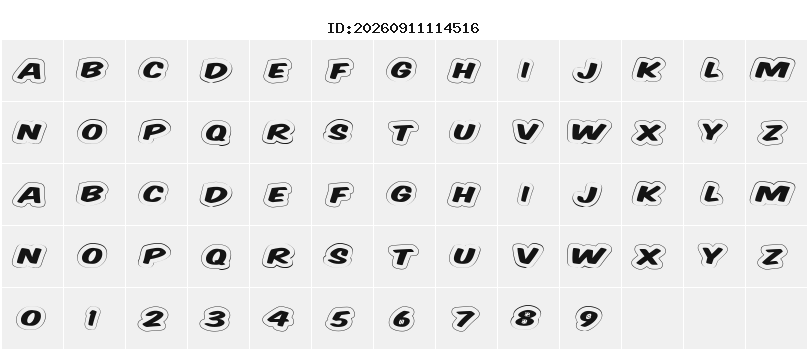
• Font Name: VTCSuperMarketSaleDisplayWired
• Designer: WolfBainX
About VTCSuperMarketSaleDisplayWired.ttf
VTCSuperMarketSaleDisplayWired.ttf is a modern, elegant sans-serif font designed for ultimate readability and visual harmony. Perfect for branding, headlines, web design, and print materials.